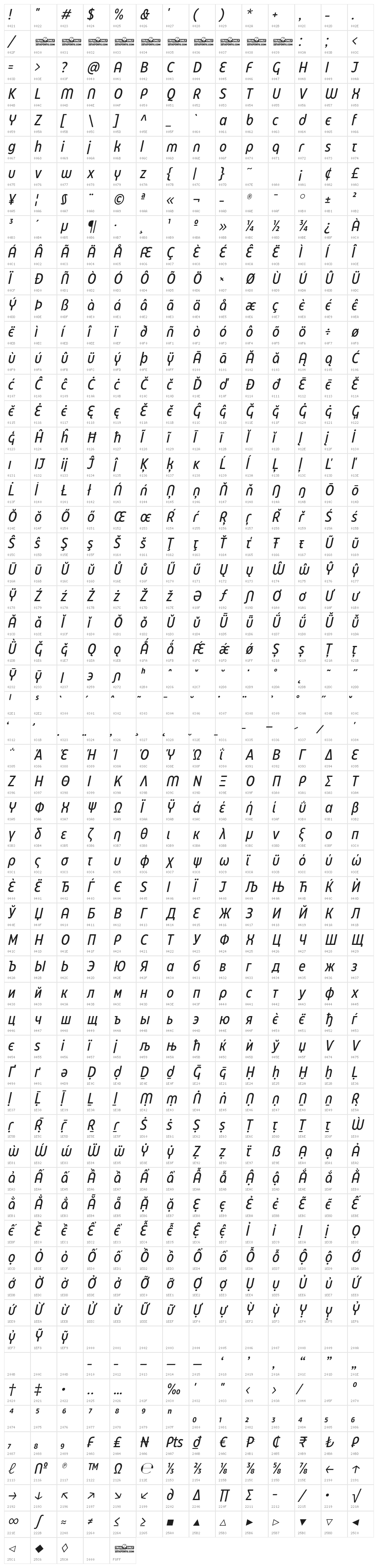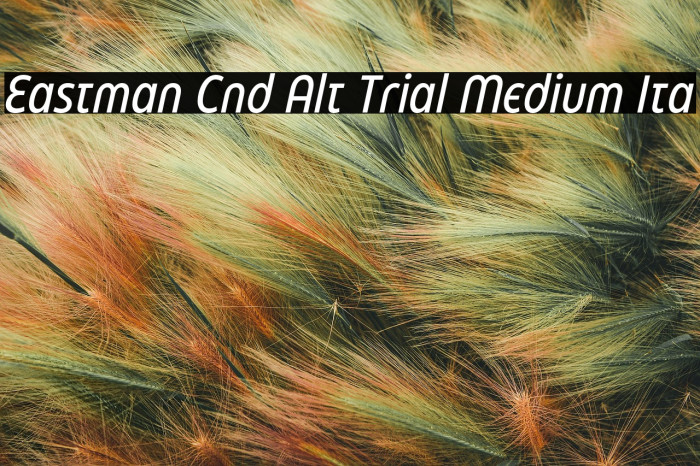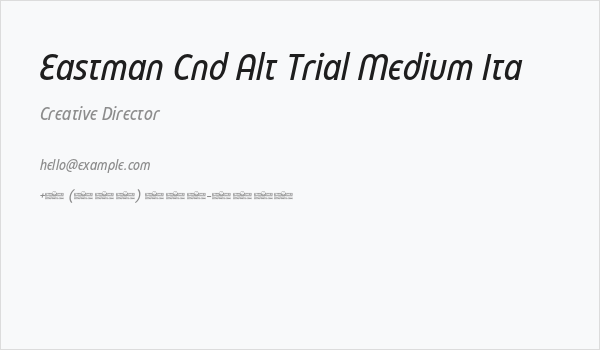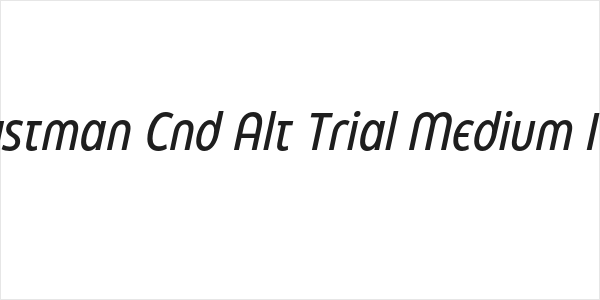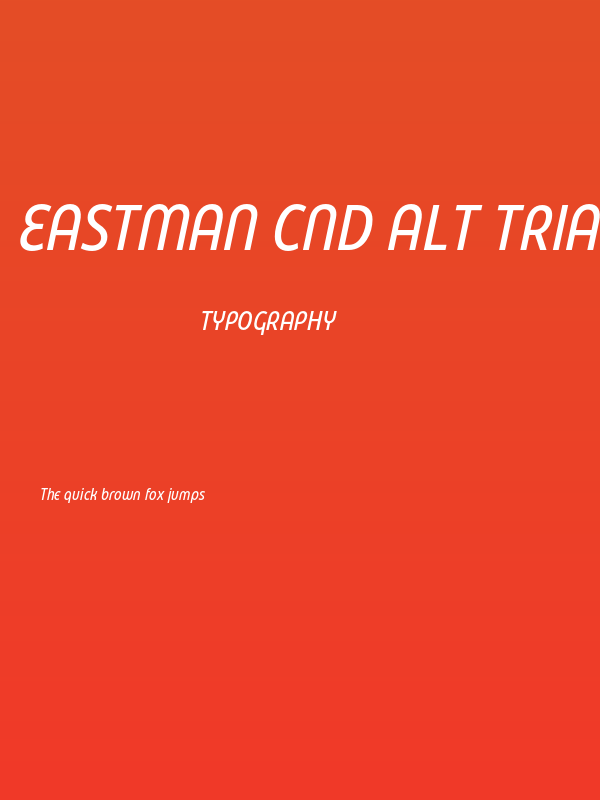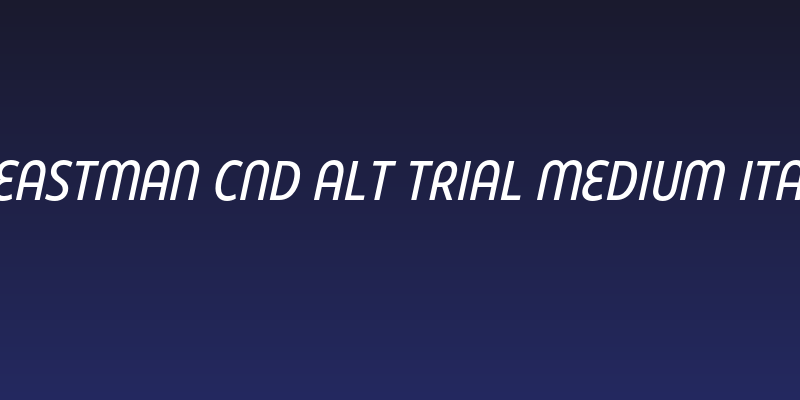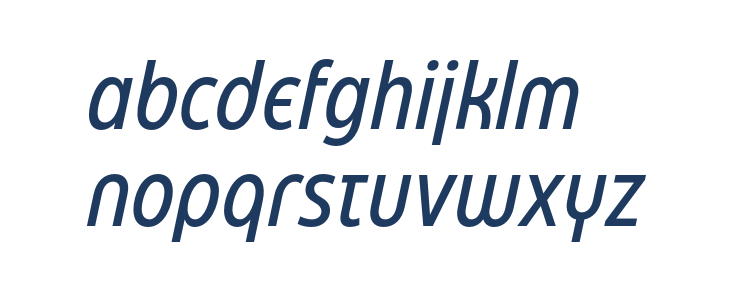
Eastman Cnd Alt Trial Medium Ita Font
Eastman Cnd Alt Trial Medium Ita Description
This font features a modern, sleek design with a slightly condensed appearance. The characters are italicized, giving them a dynamic and forward-leaning posture. The strokes are consistent in thickness, providing a medium contrast that enhances readability while maintaining a stylish look. The font includes a full set of uppercase and lowercase letters, numerals, and a variety of special characters, making it versatile for different design needs. Its clean lines and contemporary aesthetic make it suitable for a range of applications.